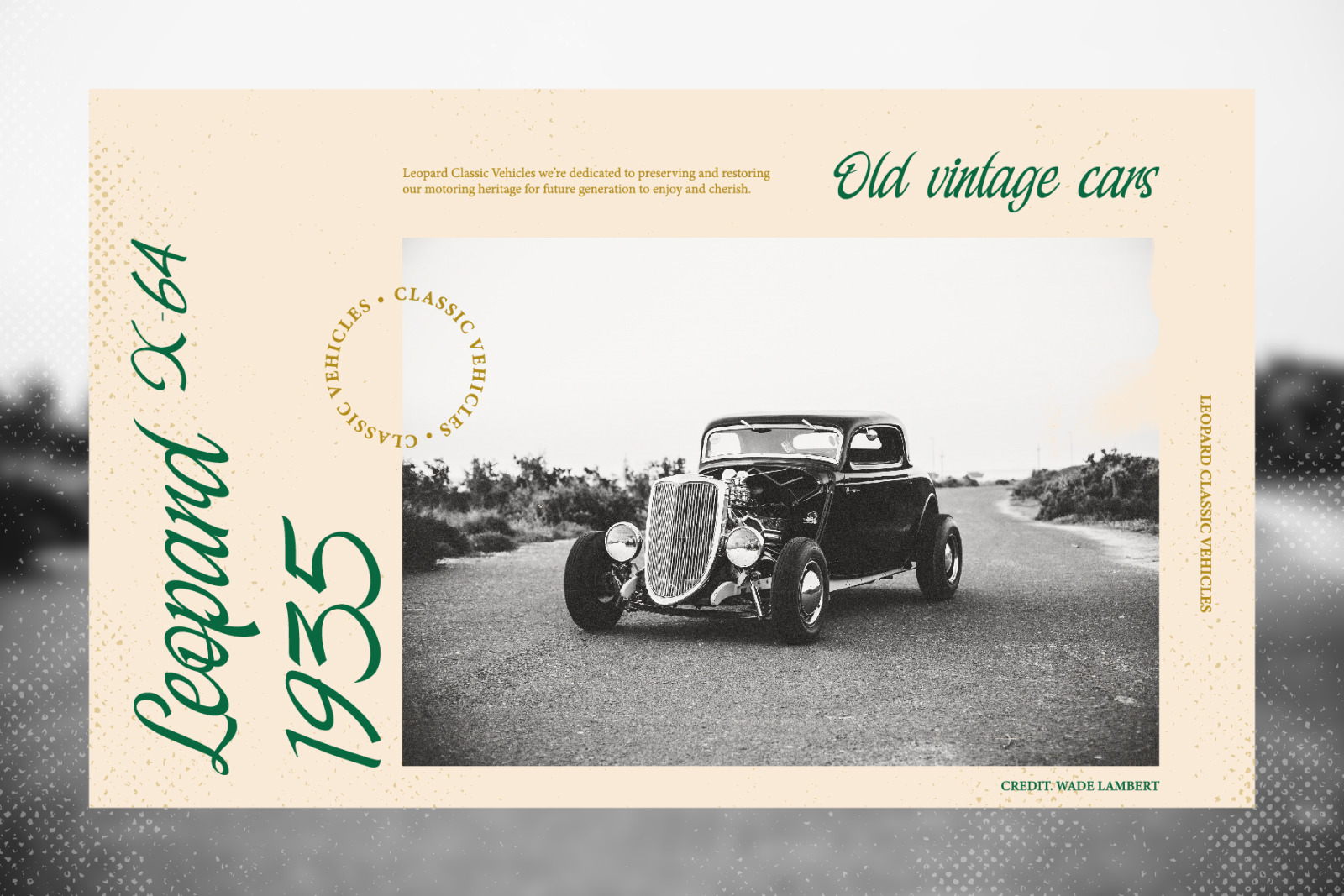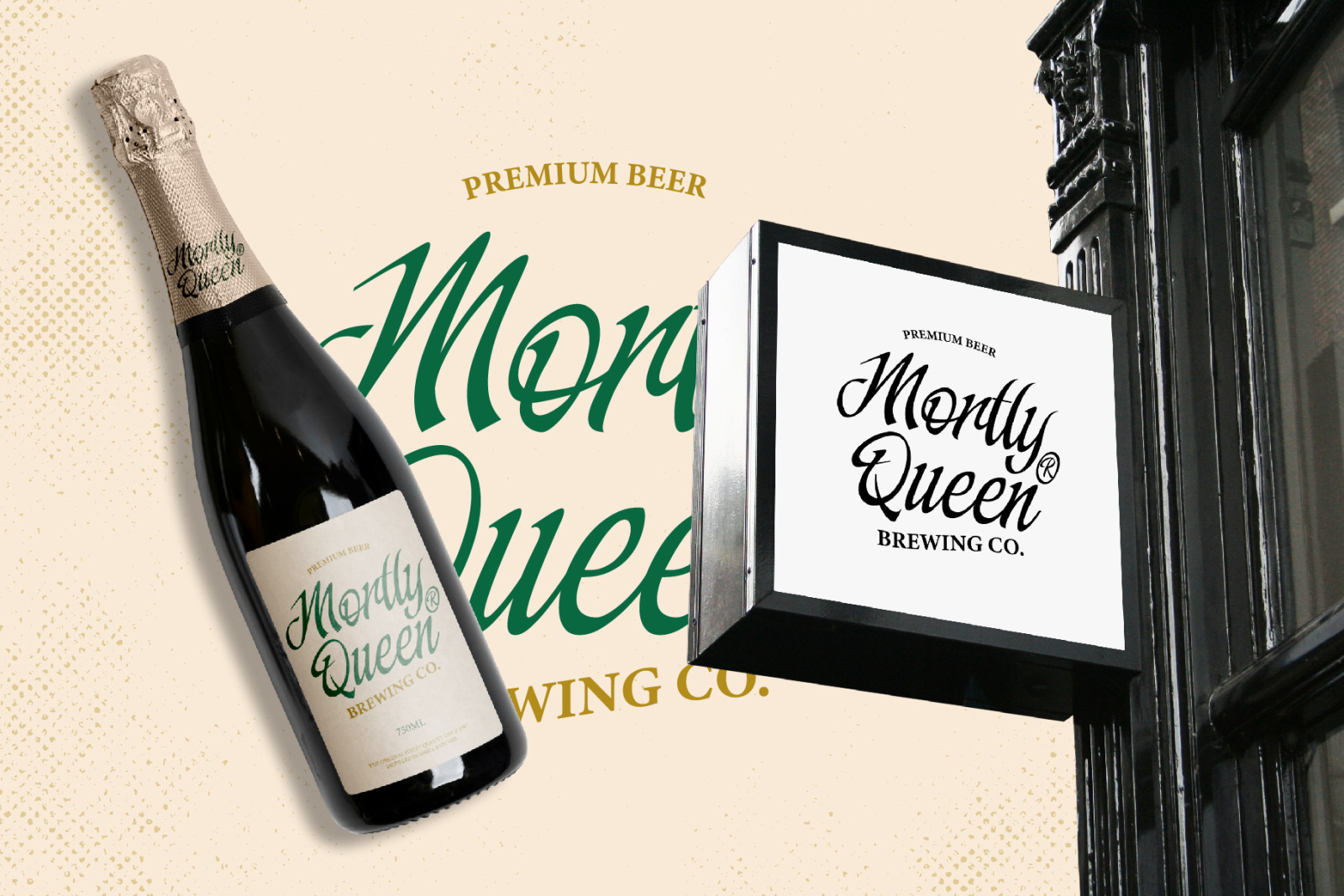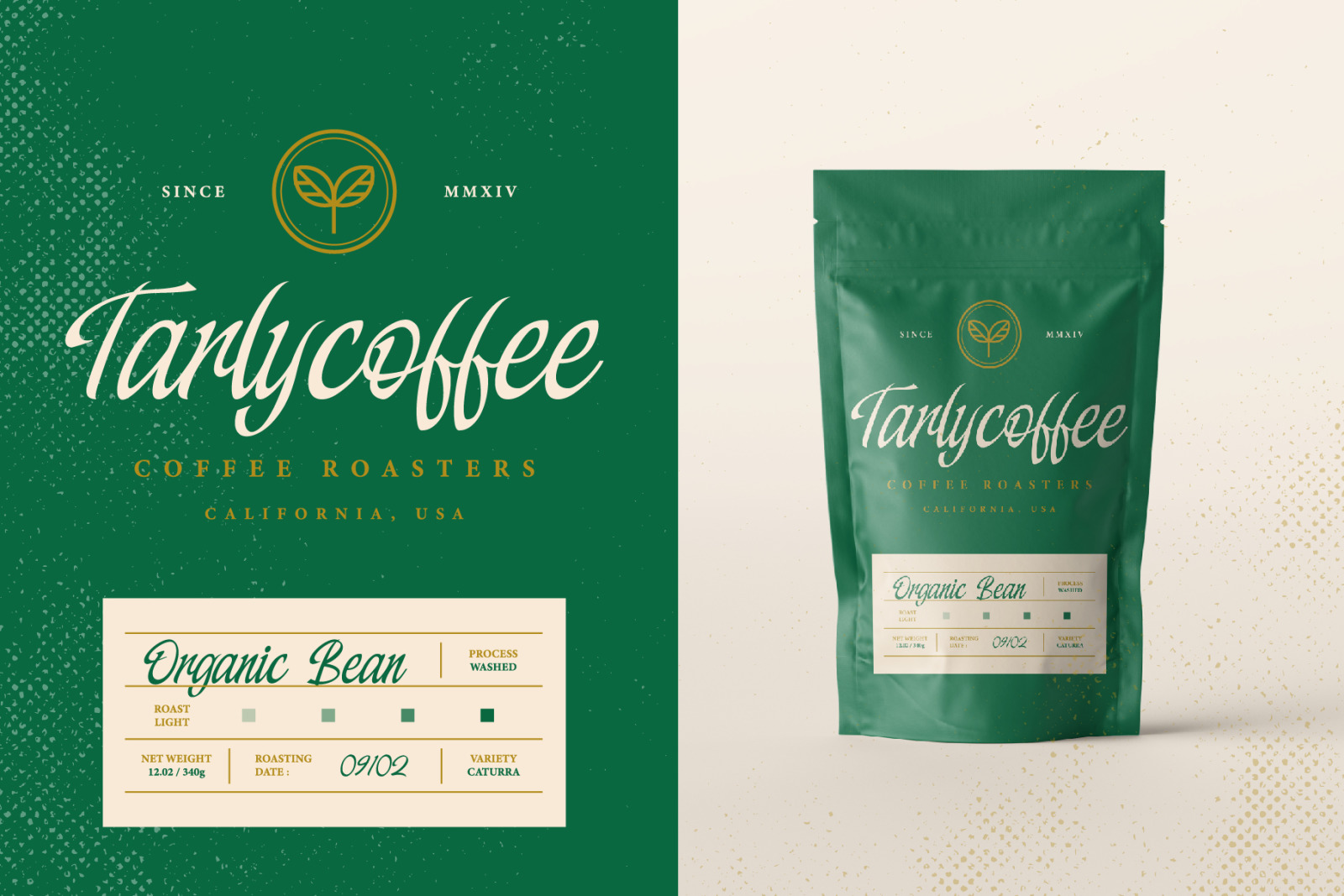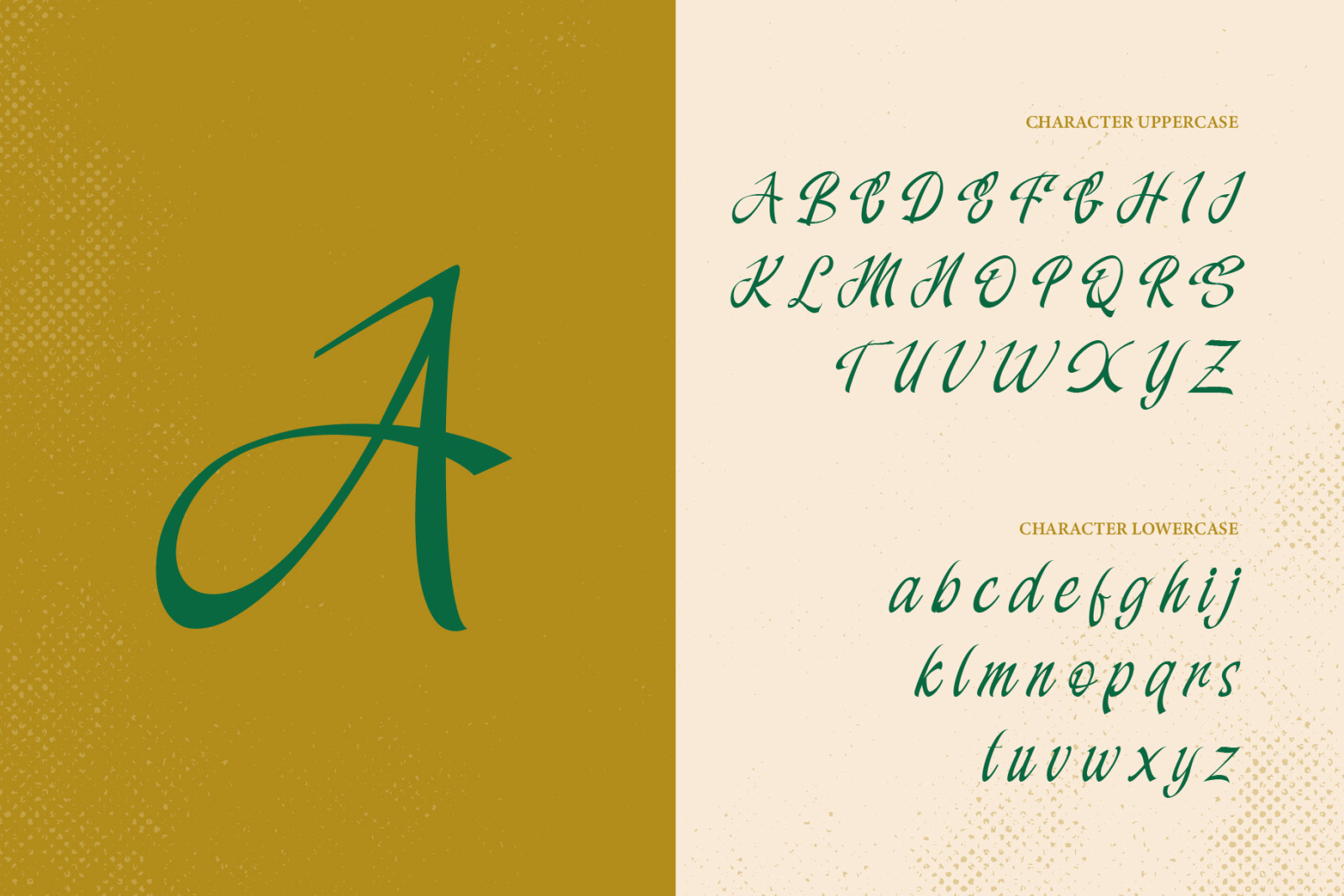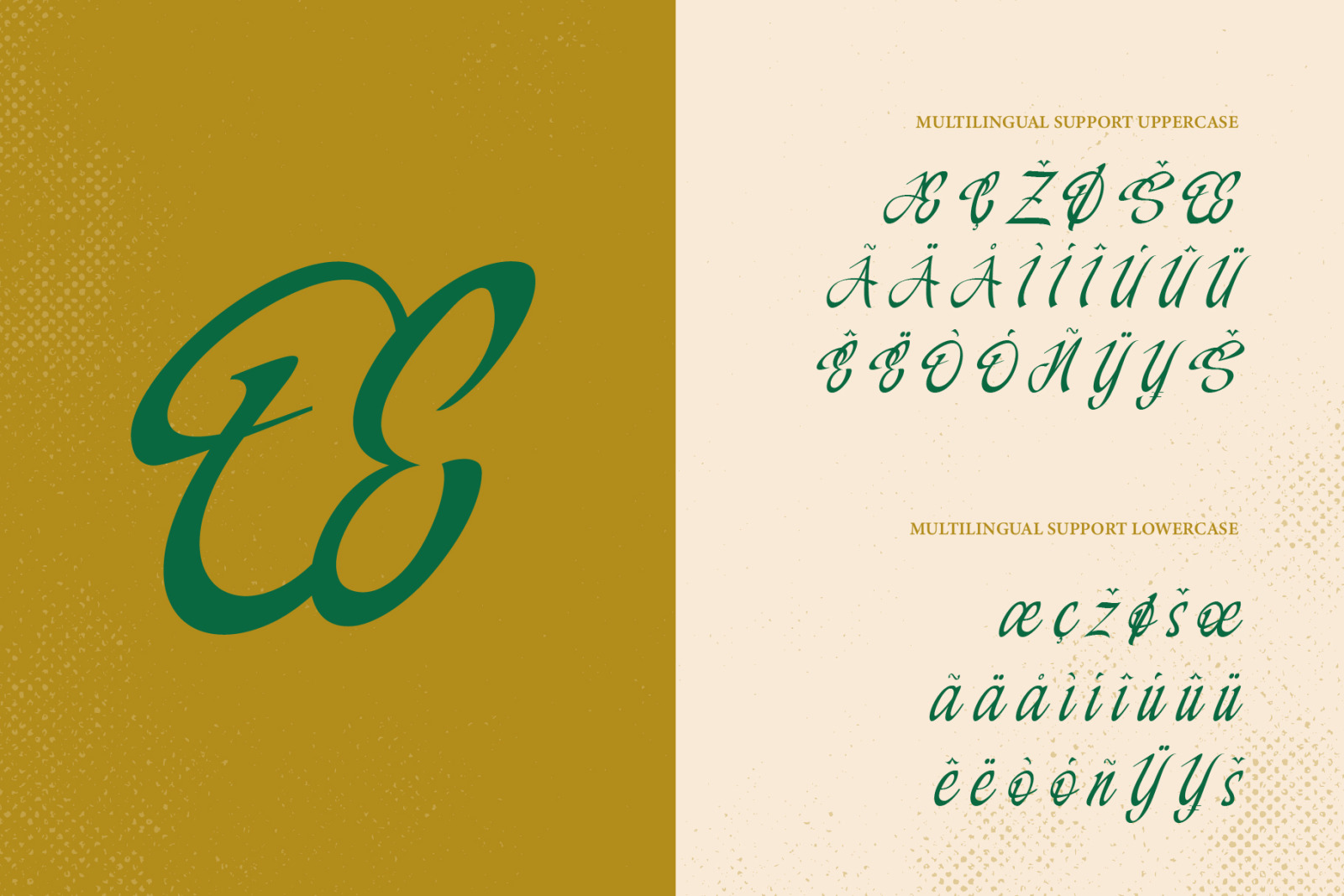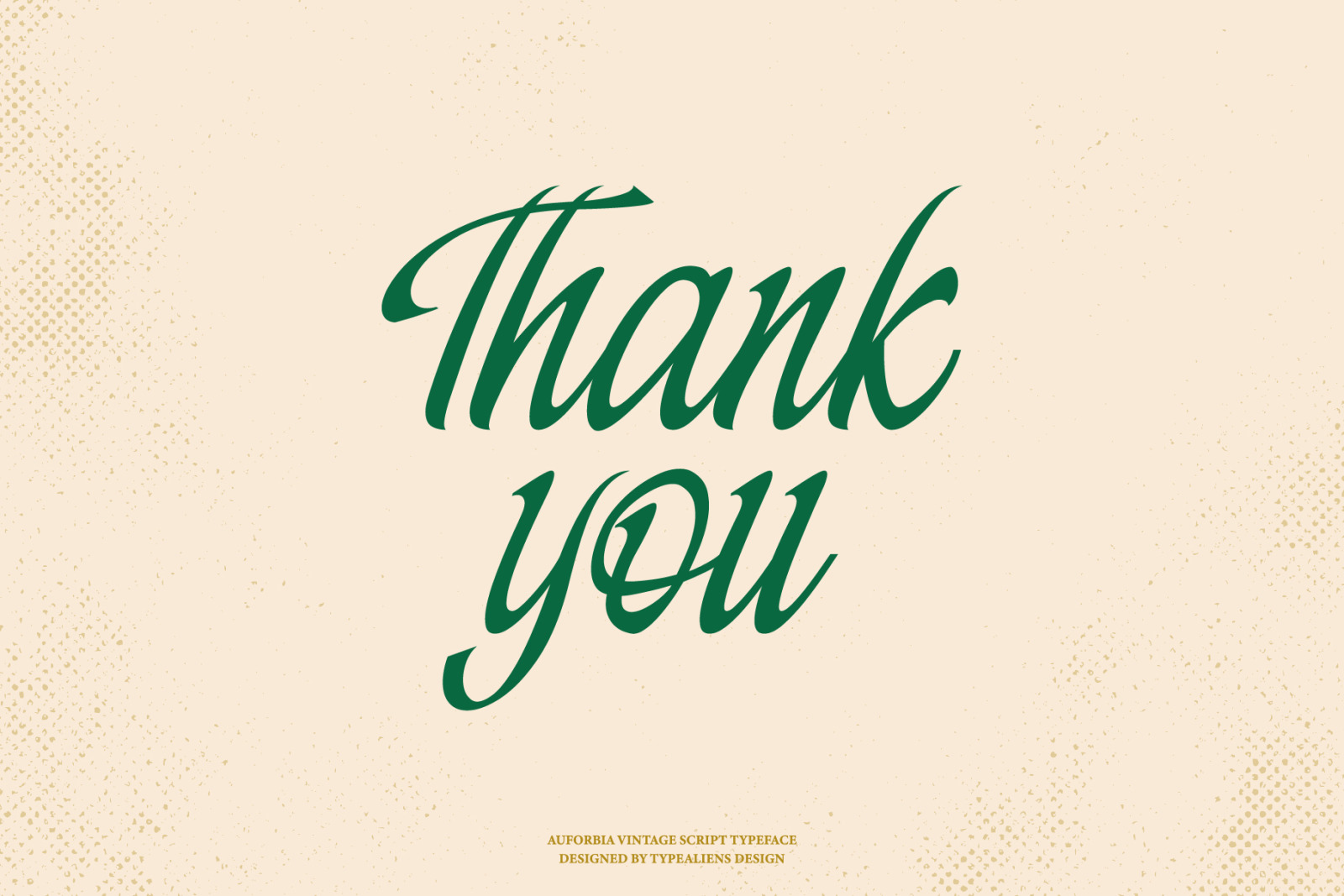
Auforbia Font
AUFORBIA is a script font with a classic feel. In addition, it also has a beautiful impression. It will be very suitable for vintage-style designs such as for making logo designs, logotypes, business cards, food packaging, beverage labels etc.